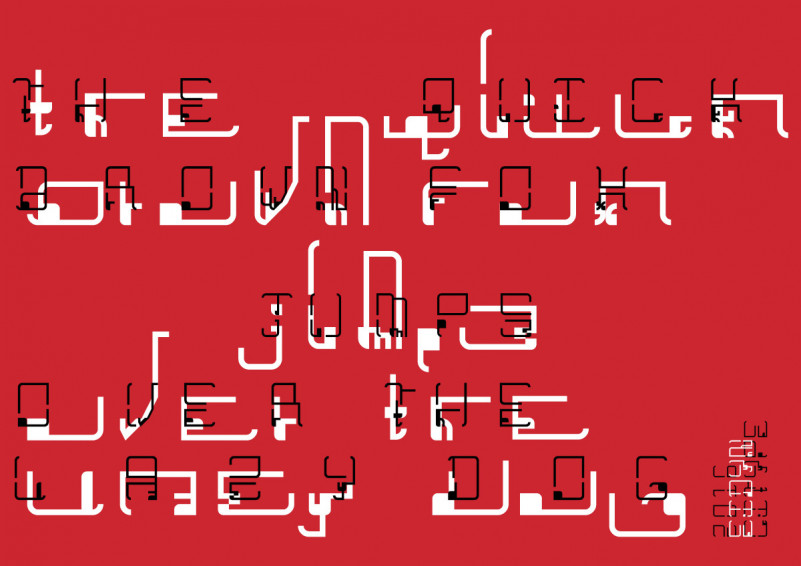
Eidyn Font
Eidyn is lower in the upper case. It’s the contrast. It’s the perfect planimetric geometry of Edinburgh city centre built in the same territory of the historic architectures of the old town. Eidyn is also a sociocultural metaphor of an ancient city enriched by the new diversities, without loosing own roots.